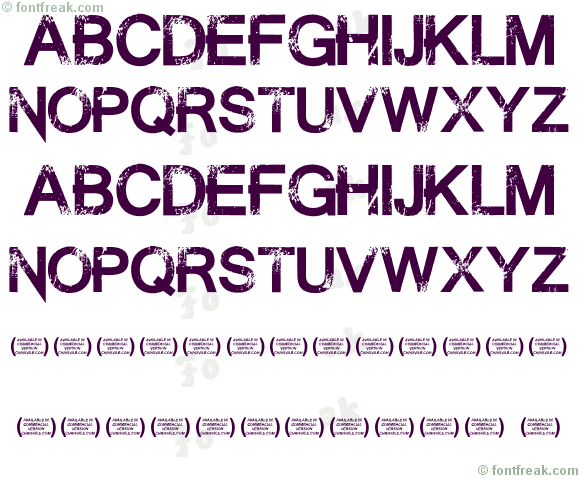
SummontheExecutioner-Regular
Summon the Executioner Regular
About SummontheExecutioner-Regular
SummontheExecutioner-Regular is a distinctive display font designed by Chris Vile, characterized by its unique, rugged aesthetic. This font falls into the decorative category, making it ideal for projects that seek to evoke a sense of drama and intensity. The visual characteristics of SummontheExecutioner-Regular include a bold stroke weight combined with a rough texture that gives each letter a gritty, hand-crafted feel. The contrast in the characters is striking, with uneven spacing that adds to the font's raw, edgy vibe. This makes it an excellent choice for designs that require a bold statement.
Best suited for use cases such as movie posters, video game branding, heavy metal album covers, and edgy merchandise, this font captures attention and conveys a strong, thematic message. Its unique style can also enhance restaurant menus that aim for a rustic or alternative atmosphere, making it versatile for various creative projects.
The target audience for SummontheExecutioner-Regular includes graphic designers, small business owners, and content creators who are looking to add a touch of originality and flair to their work. This font particularly appeals to those in creative industries that value unique visual identities and wish to stand out in a crowded marketplace.